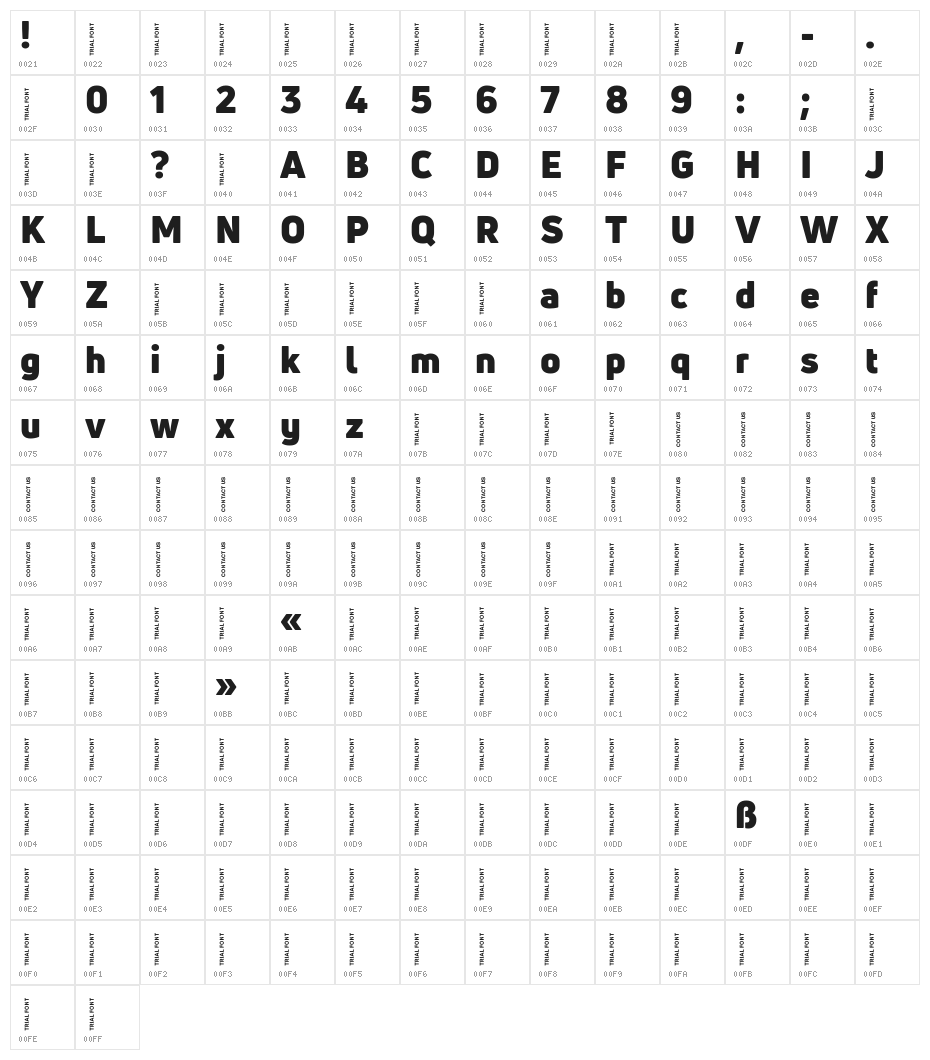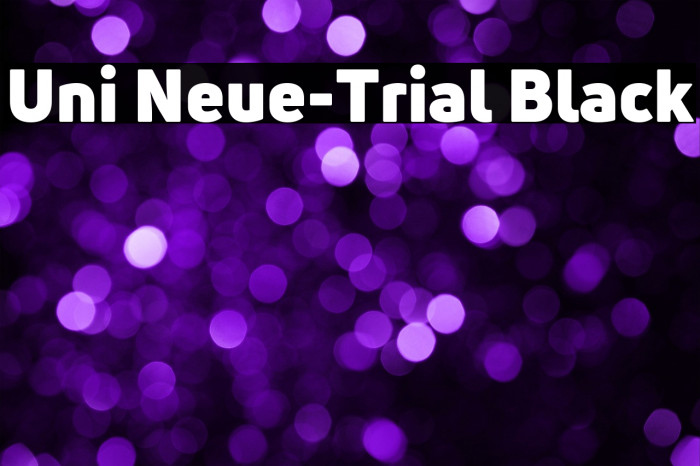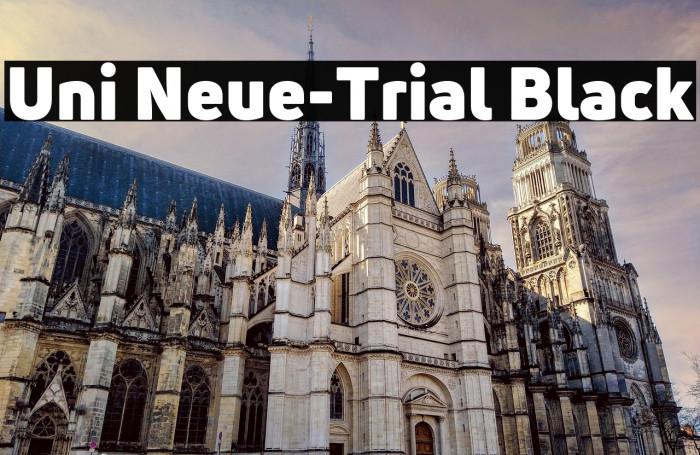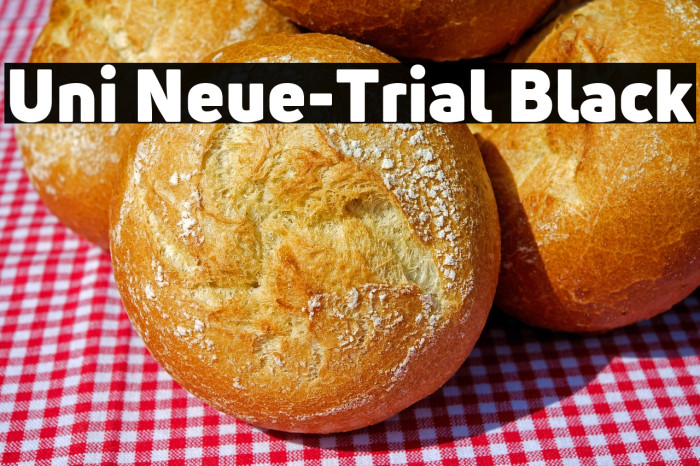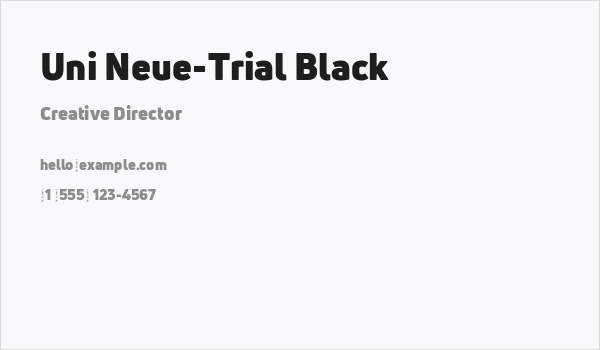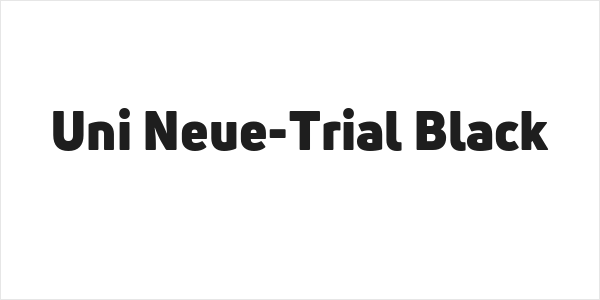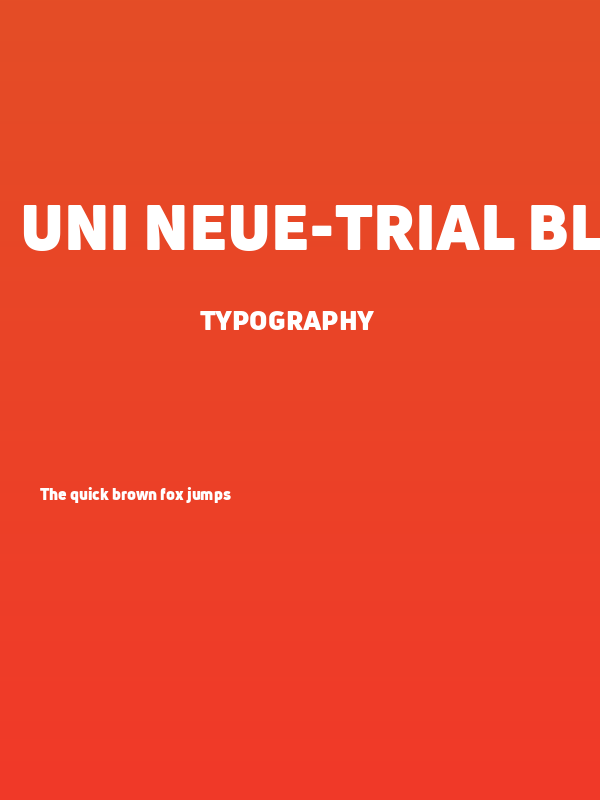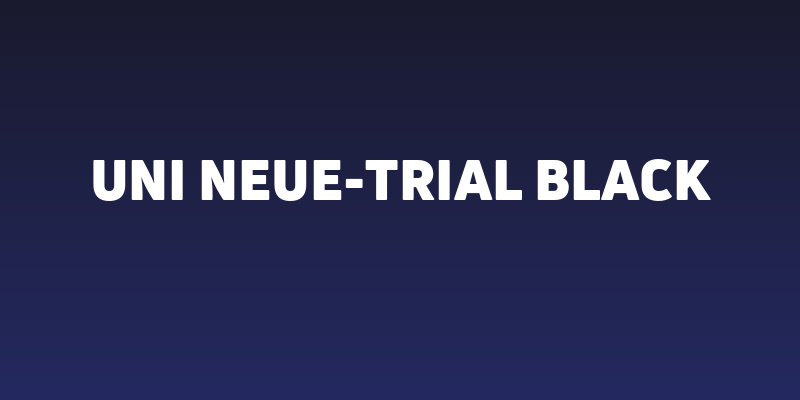
Uni Neue-Trial Black Font
Uni Neue-Trial Black Description
This font exhibits a bold and modern style with a strong geometric influence. The characters are crafted with a uniform stroke width, providing a clean and robust appearance. The uppercase letters are particularly striking, with a solid and authoritative presence. The lowercase letters maintain a consistent style, offering a harmonious balance with the uppercase. The numerals are clear and legible, designed to stand out in any context. Special characters are included, maintaining the overall aesthetic of the font. This font is ideal for making a bold statement in headlines or logos, where clarity and impact are essential.
| Proposed Projects | Ideal for branding, advertising, and editorial design projects where a strong visual impact is needed. |